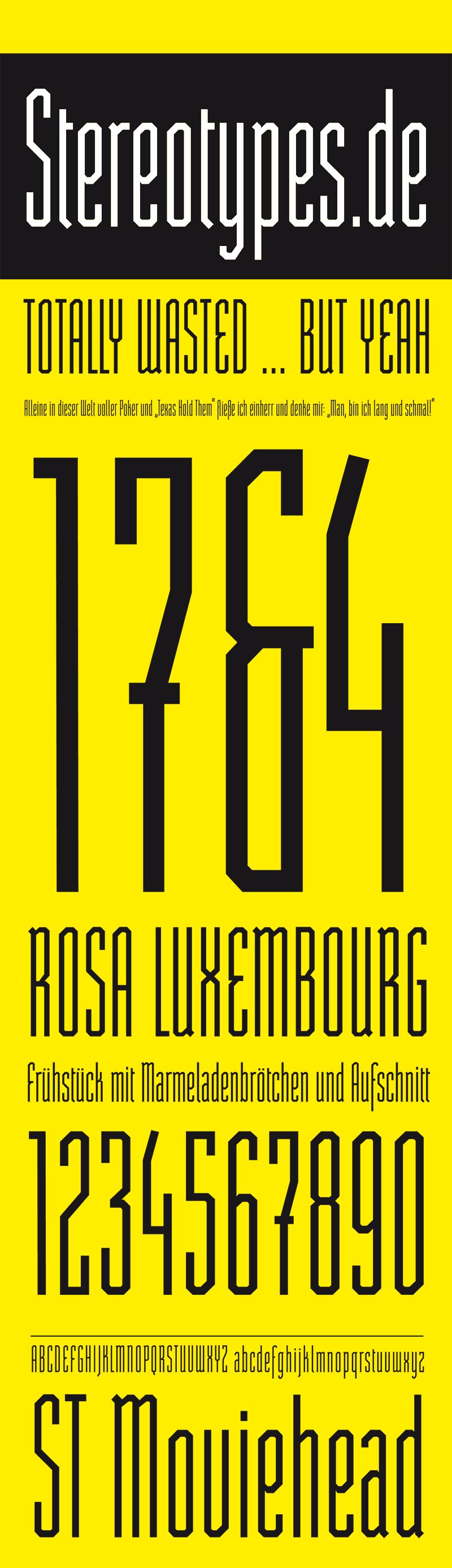
ST Moviehead Ultra-condensed by Sascha Timplan is a free outlined techno font with tall, skeletal letterforms. Its thin double-line strokes create an engineered silhouette, and the narrow proportions make the letters look almost diagrammatic. Rounded bends soften the otherwise strict vertical construction.
Technology brands and electronic music labels could use it for logos, packaging, and event posters. The lettering has the measured look of circuitry or technical drafting, which suits futuristic product graphics and science-fiction entertainment. Its outlined forms can echo wireframe illustrations, circuit paths, and linear interface icons rather than acting as neutral text.
ST Moviehead
Sascha Timplan